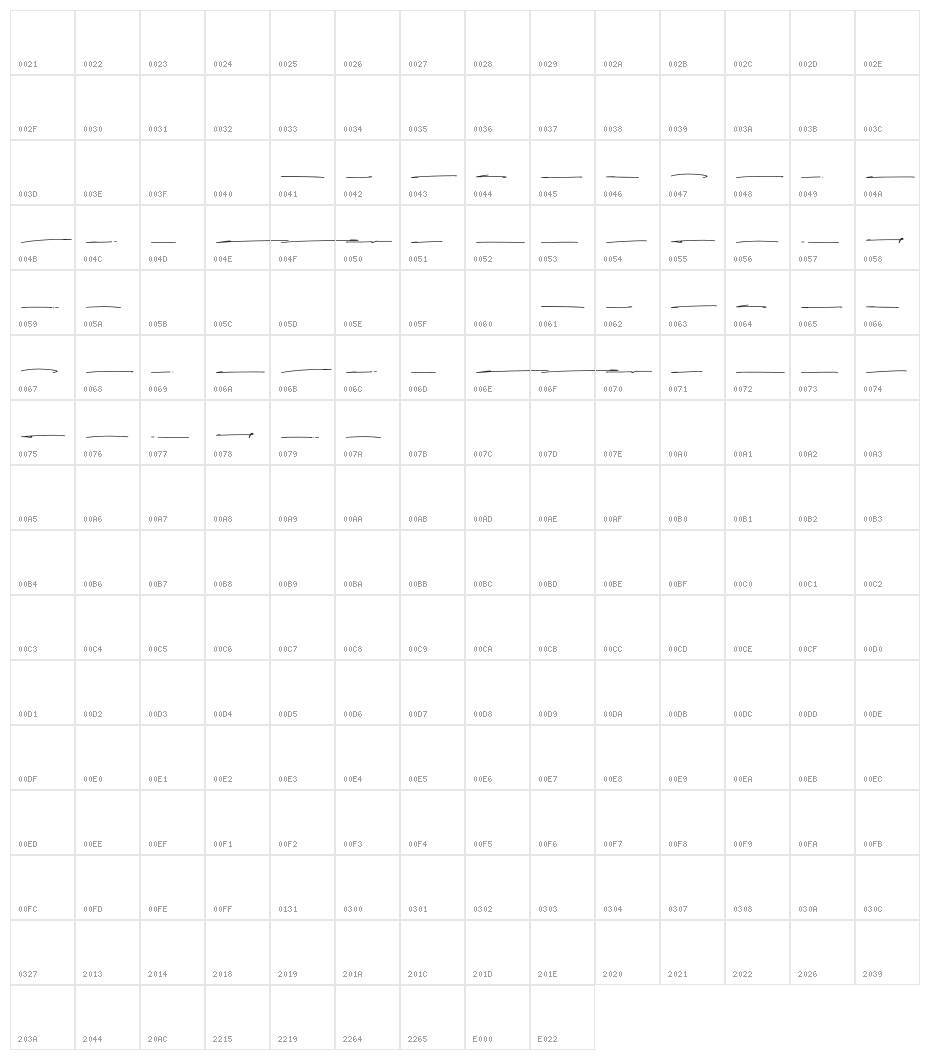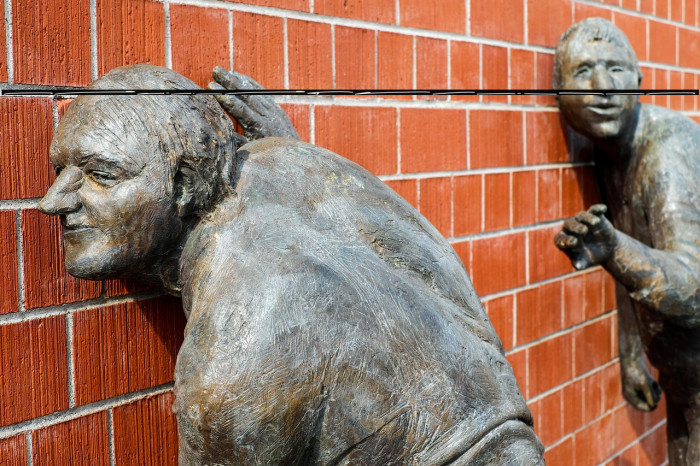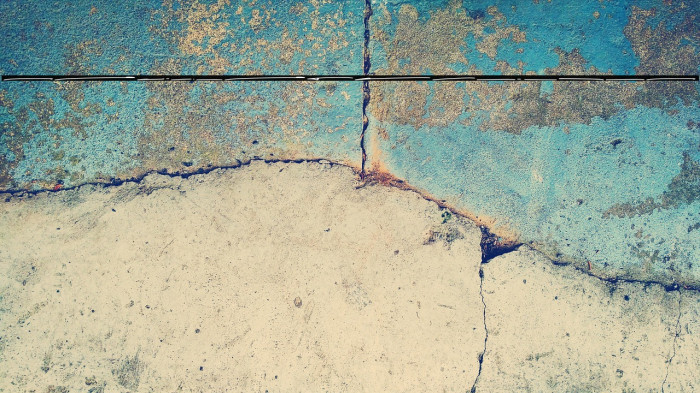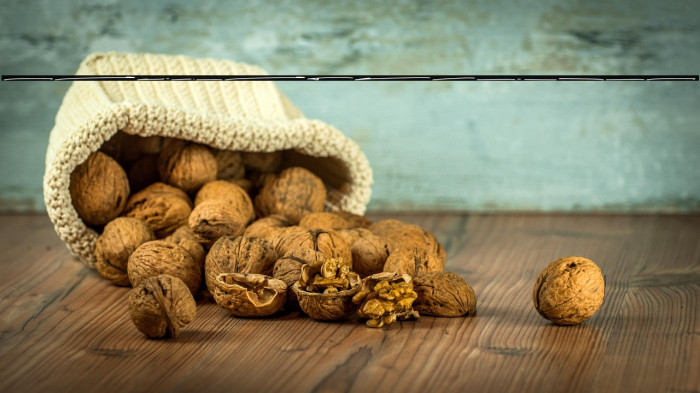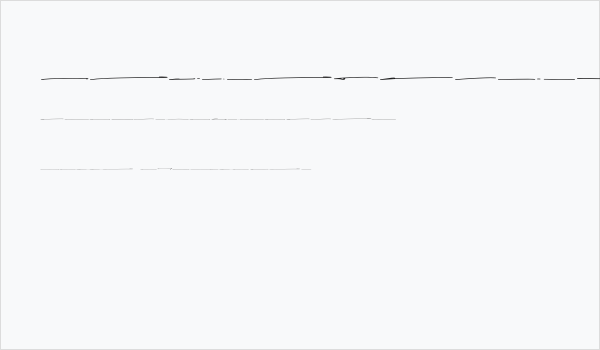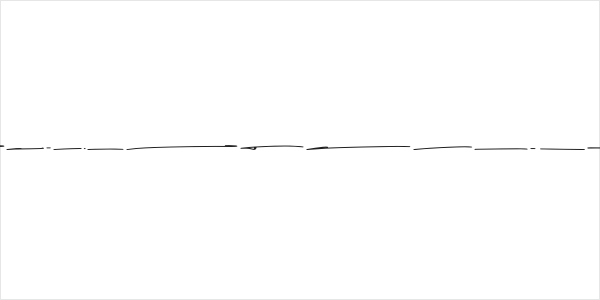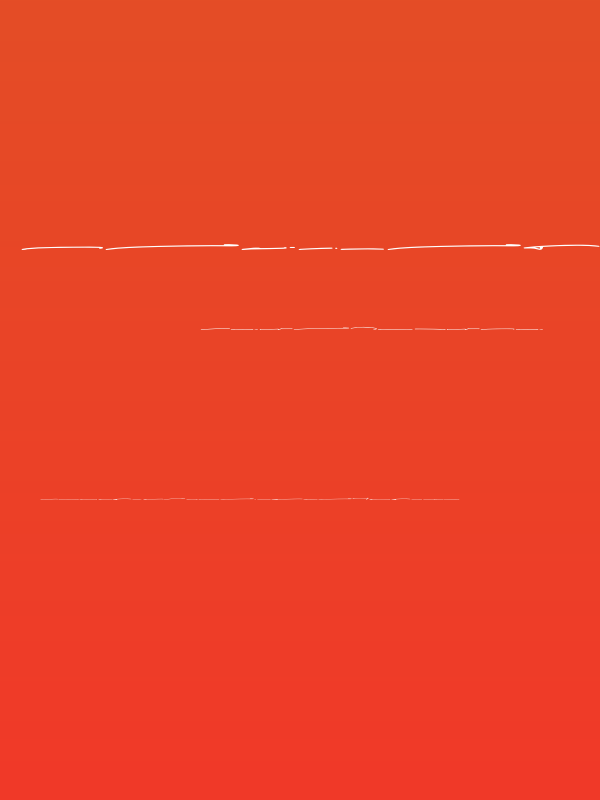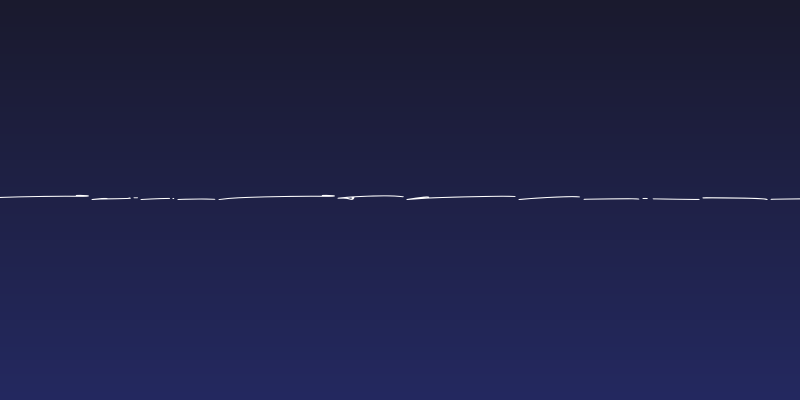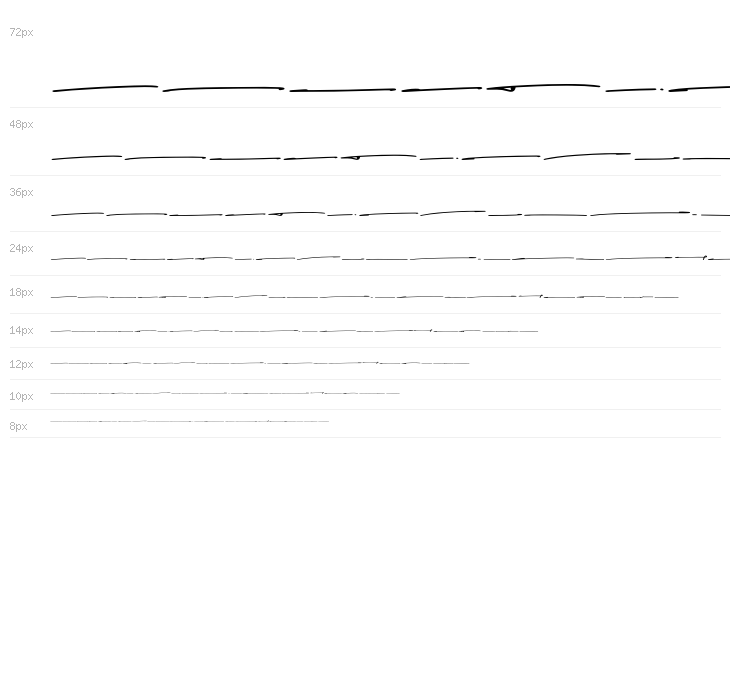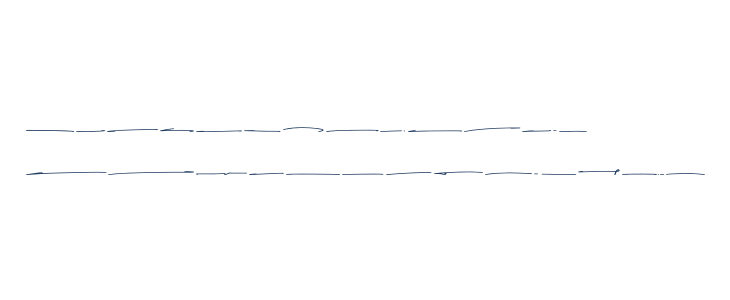
Holimount swash Font
Holimount swash Description
This font features a whimsical and playful style, characterized by its swash elements that add a sense of movement and flair. The strokes are fluid and dynamic, creating an elegant yet informal appearance. The letters are interconnected with sweeping curves, giving it a handwritten feel. This font is ideal for projects that require a personal touch, such as invitations, greeting cards, or branding materials that aim to convey creativity and warmth. Its unique style makes it stand out, ensuring that any text set in this font will capture attention and convey a sense of charm and personality.
| Proposed Projects | Ideal for invitations, greeting cards, and creative branding materials. |